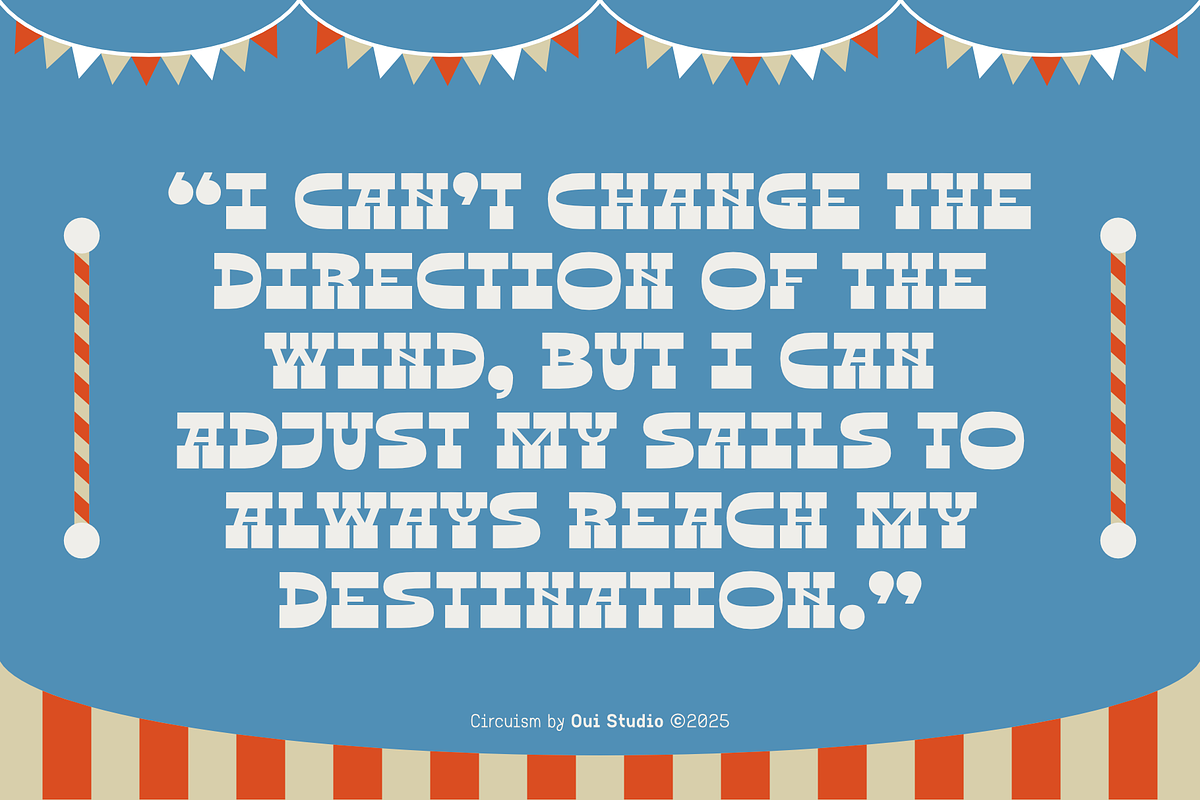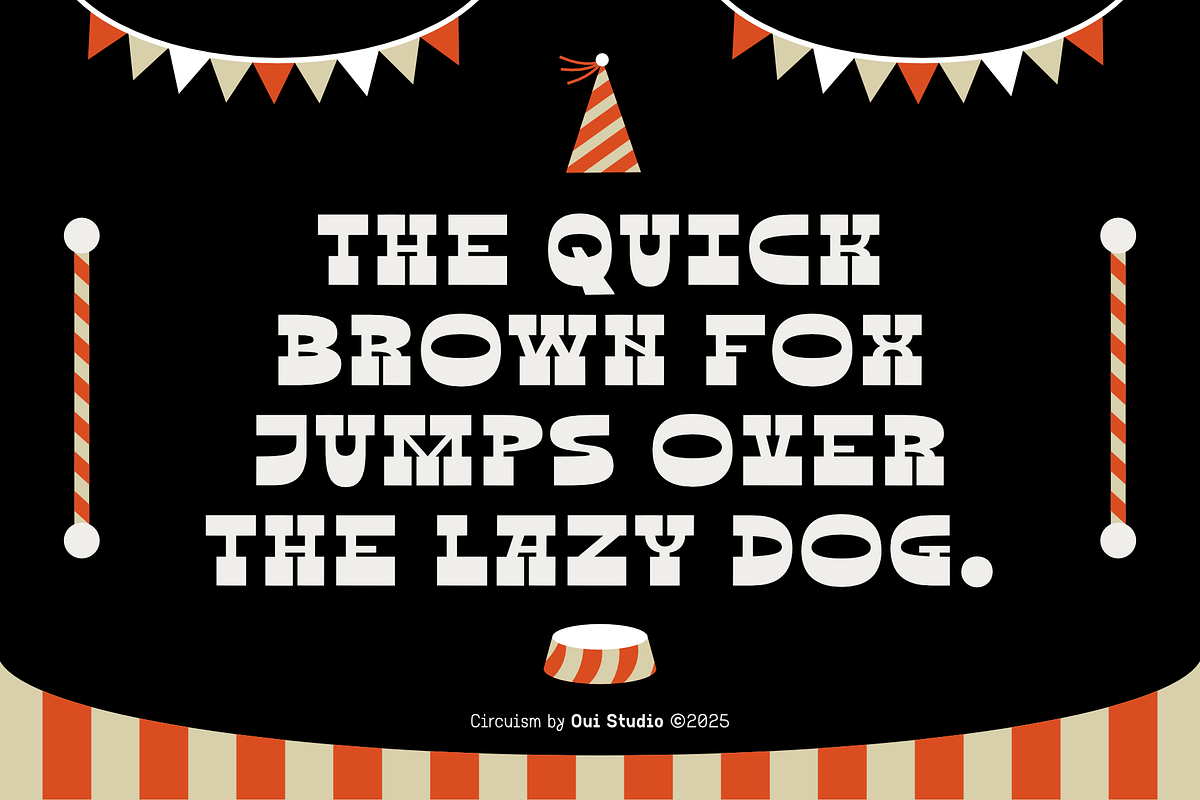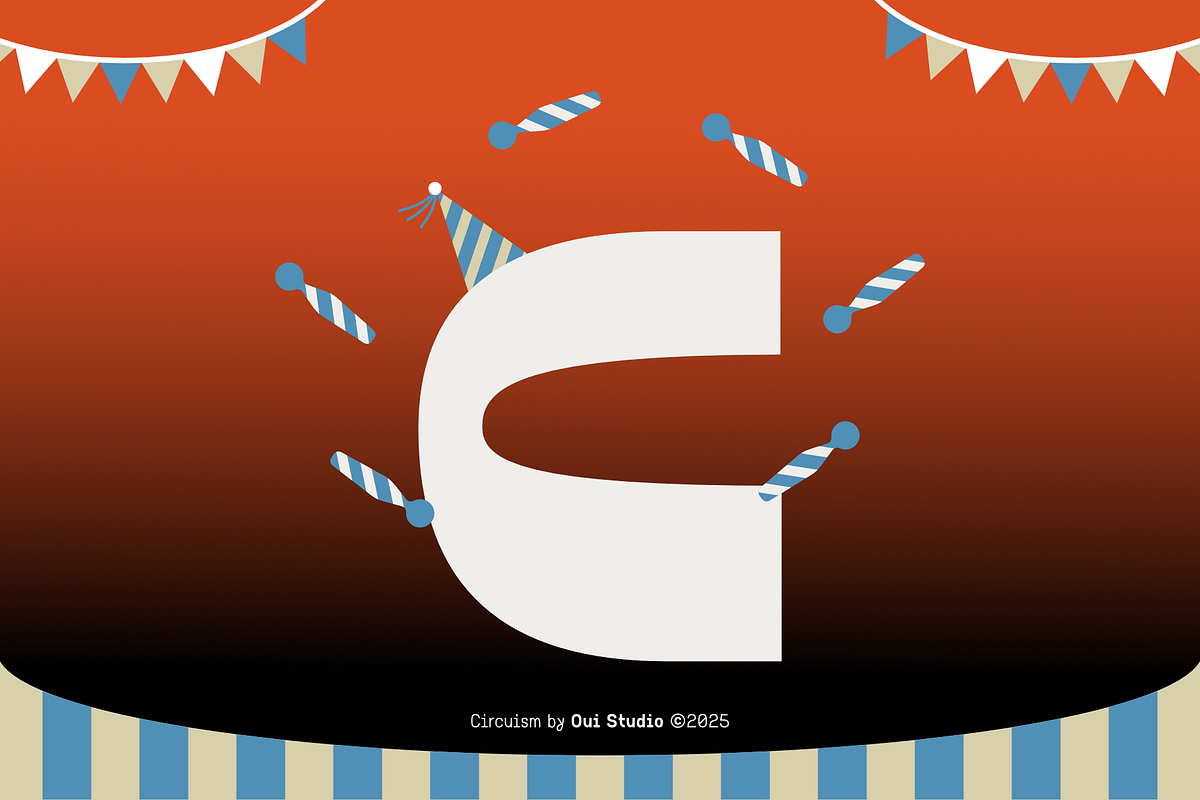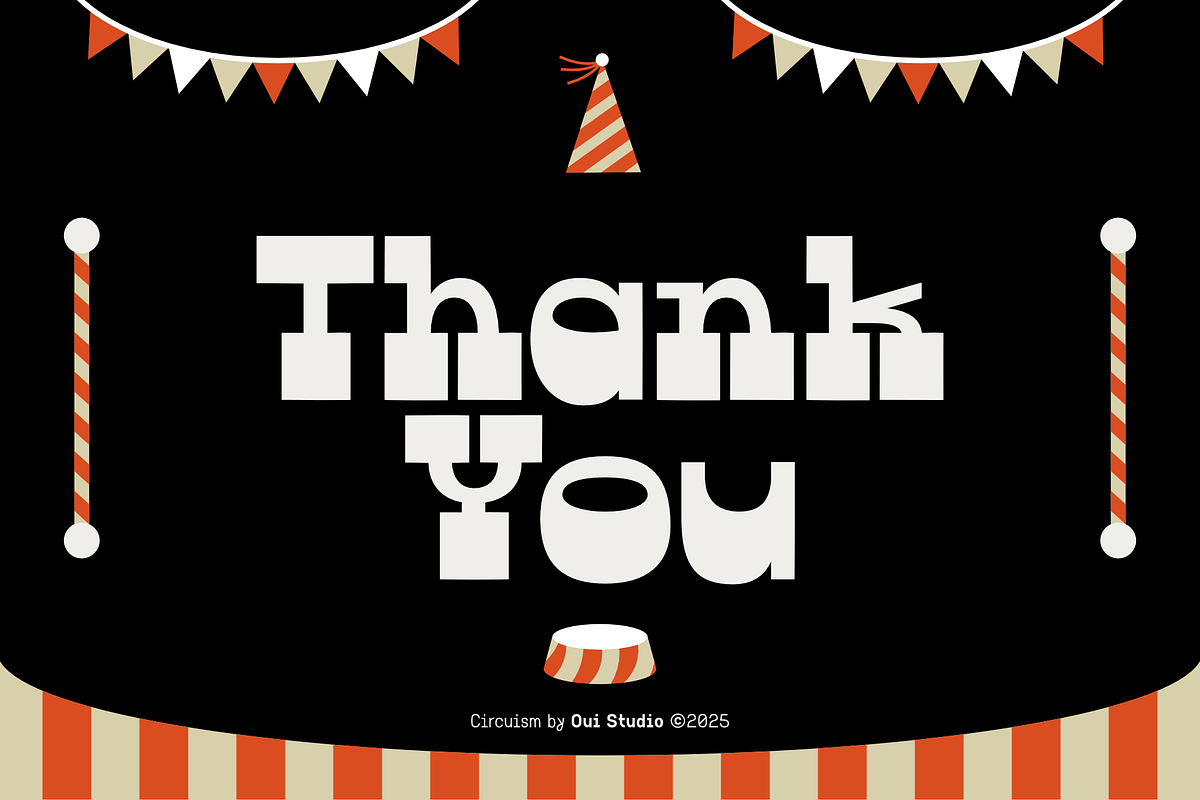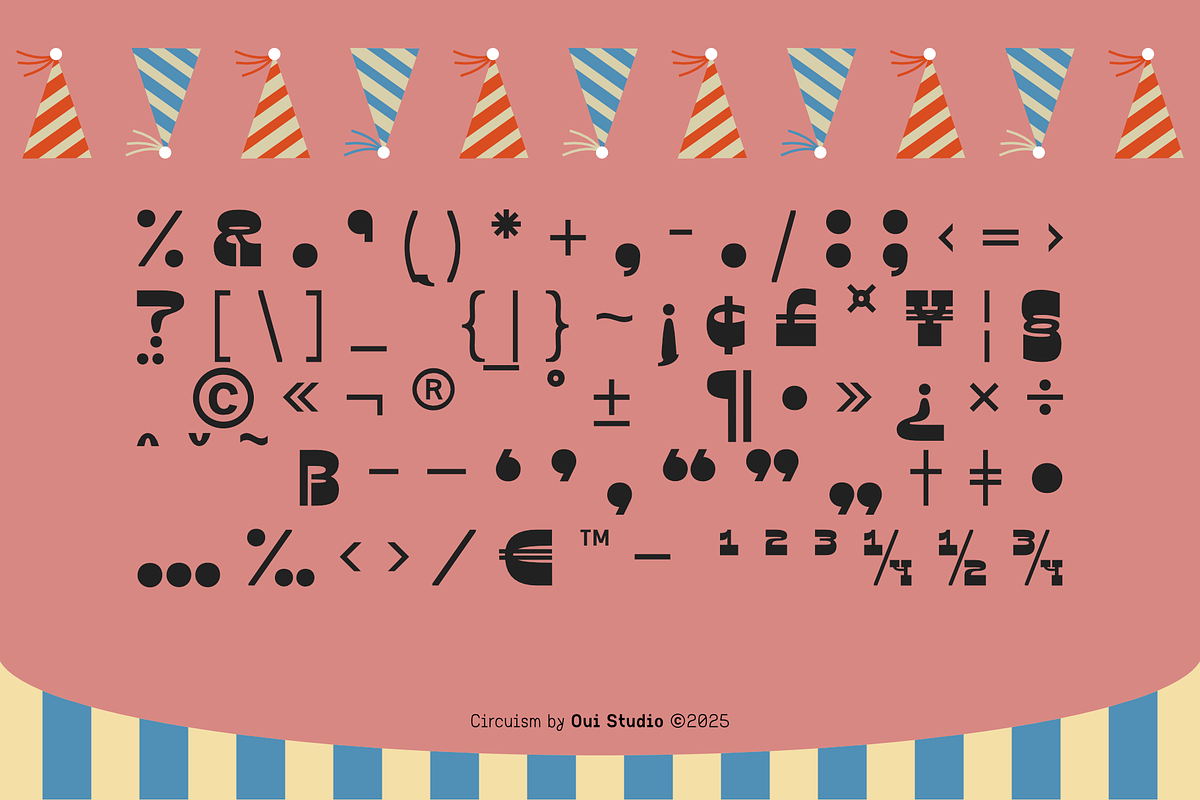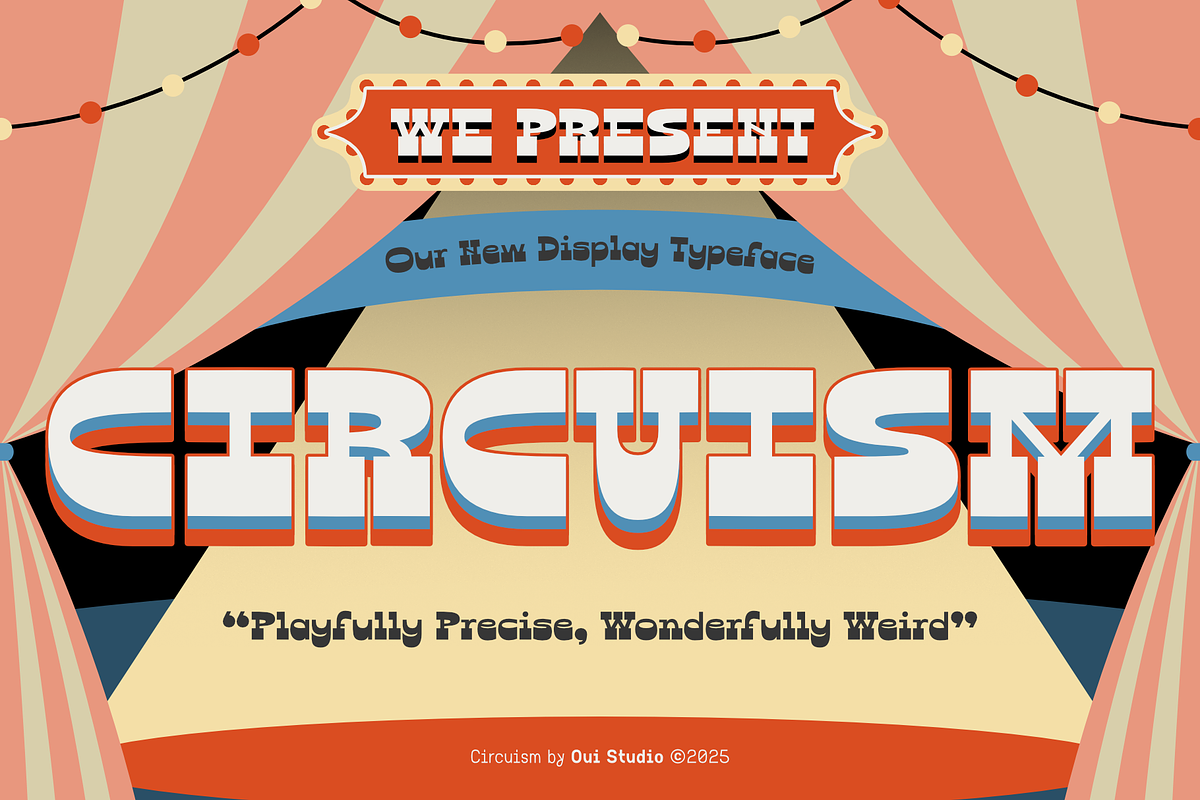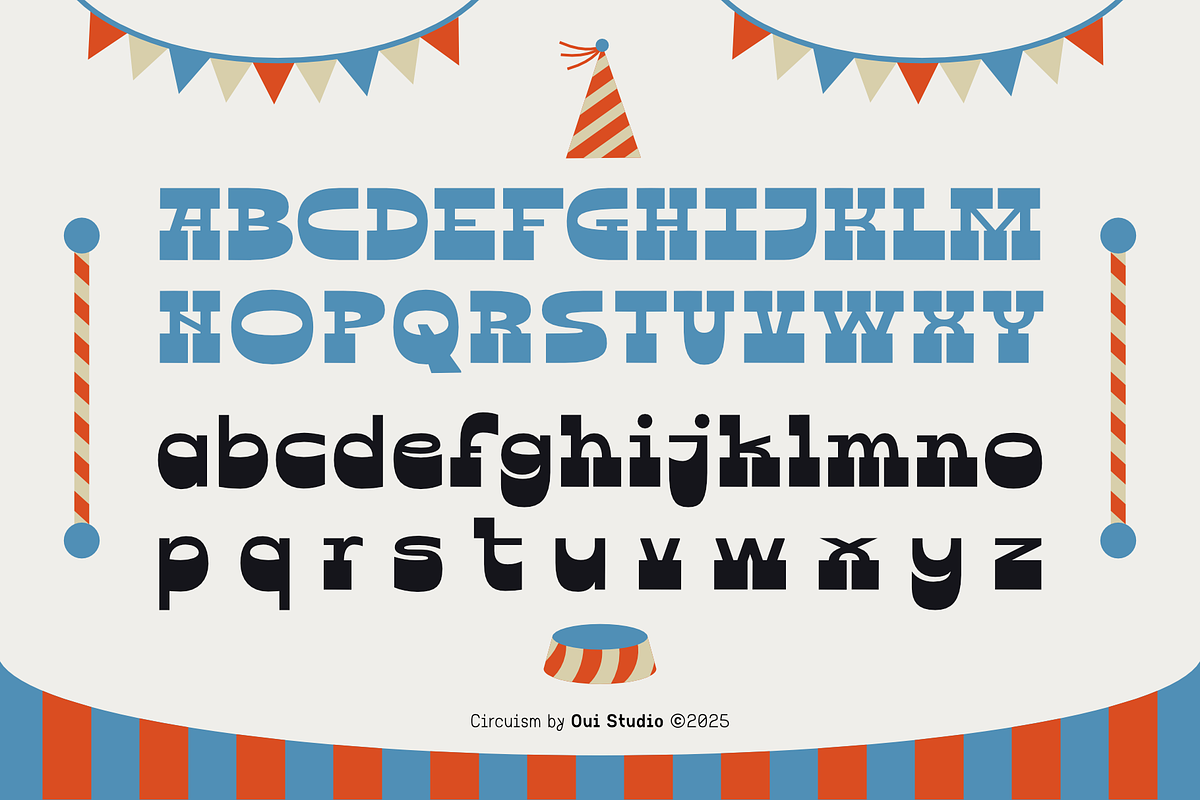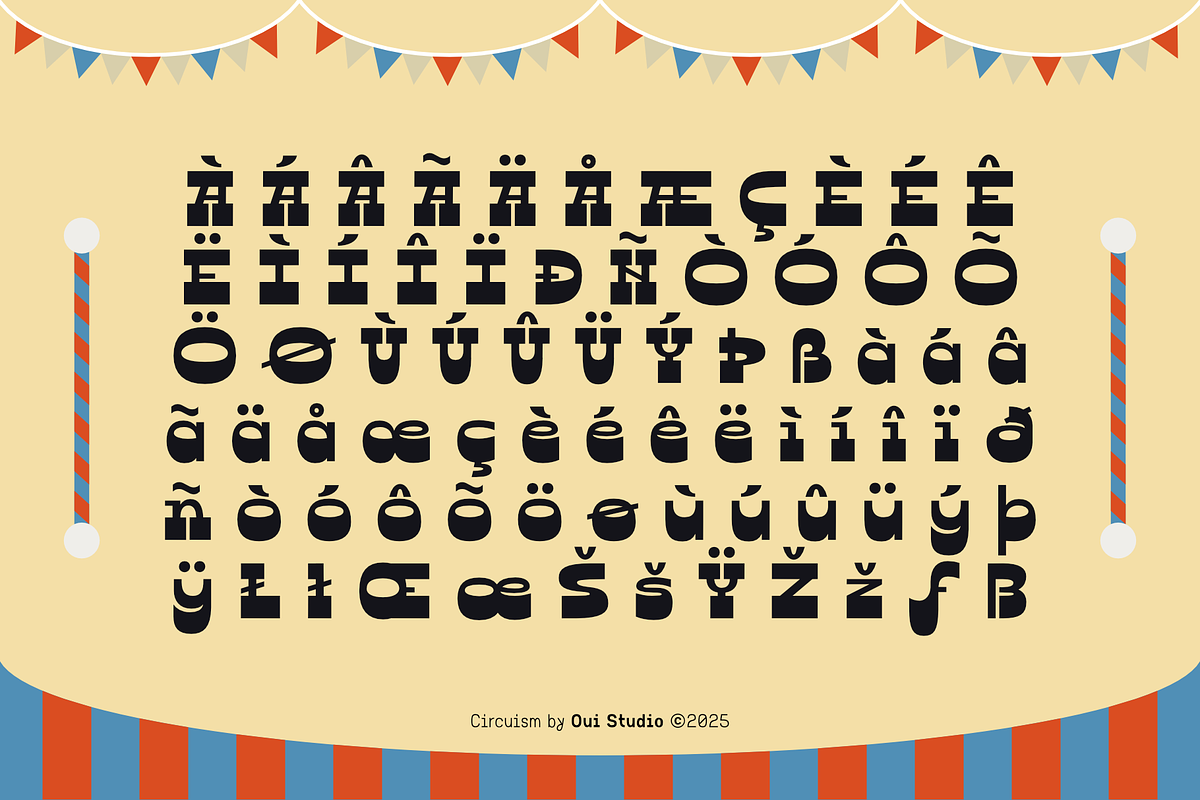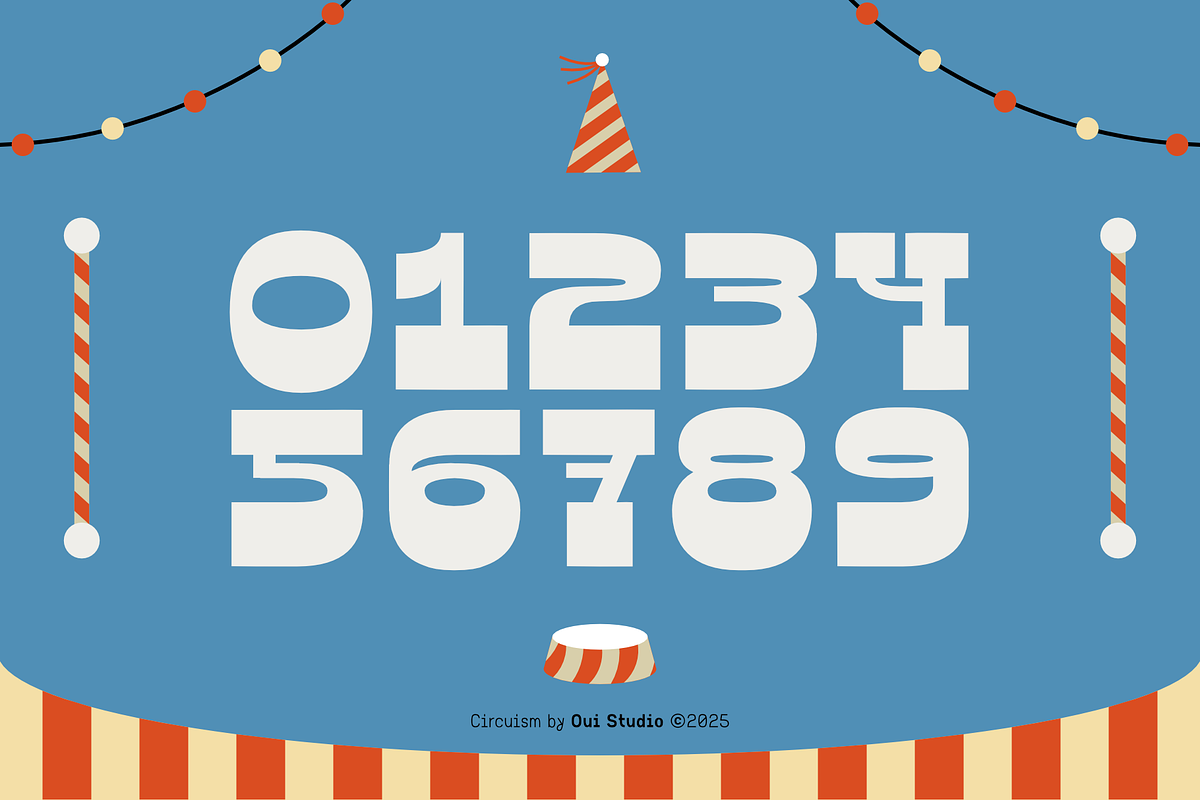
Circuism Playful Loop Font
Meet 'Circuism', a bold and bouncy display font that brings a fresh dose of fun to your design toolbox. With its fluid curves, geometric loops, and quirky character, Circuism is made to stand out and spark joy.
Perfect for creative branding, eye-catching posters, packaging, kids’ projects, logos, album covers, or any design that needs a punch of personality, Circuism doesn’t take itself too seriously—and that’s exactly its charm.
Every letter is crafted with a sense of movement and play, giving your words a unique rhythm and a vibrant voice.
Whether you’re designing for fun or aiming to leave a memorable impression, Circuism invites you to color outside the lines.